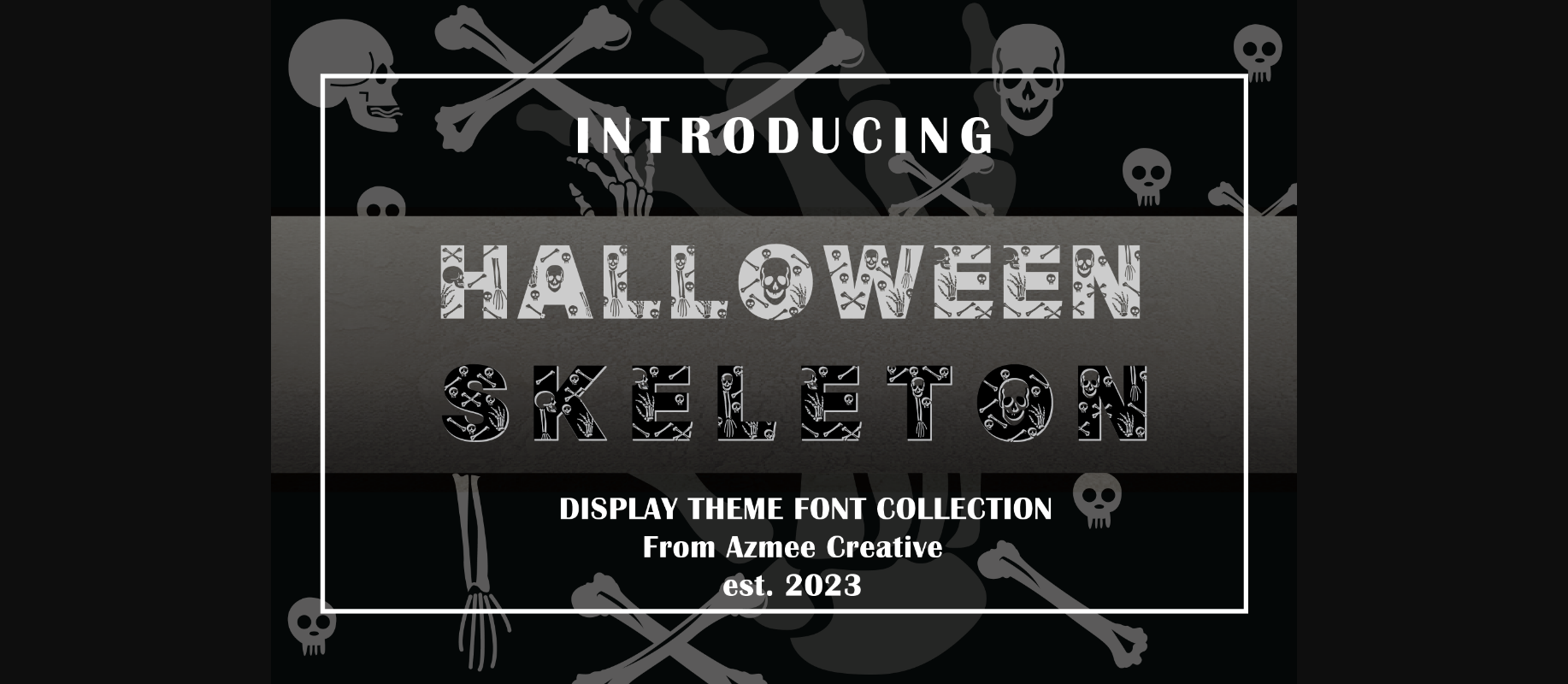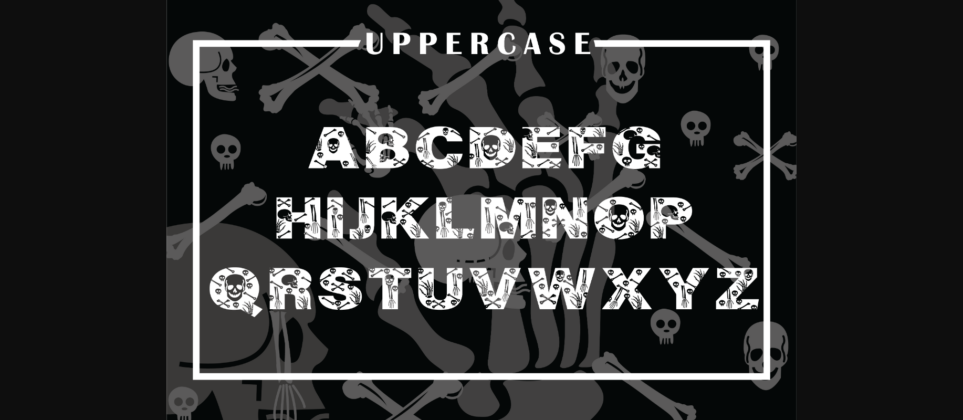
About Halloween Skeleton Font
Halloween skeleton font is a spooktacular display typeface that brings the spirit of the season to life. Inside each letter, you’ll find whimsical ghosts floating about, adding a playful and eerie twist to your designs. Perfect for Halloween-themed projects, posters, and party invitations, Halloween Night font is sure to haunt your creativity in the most delightful way!